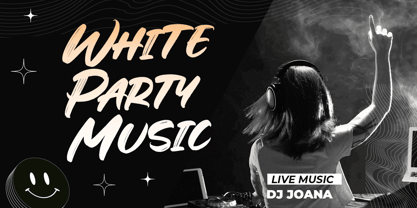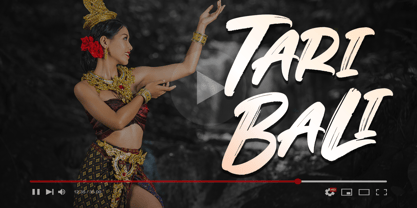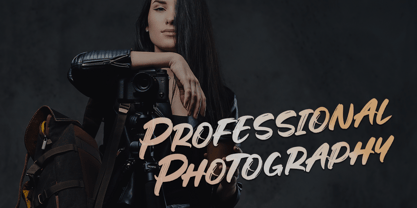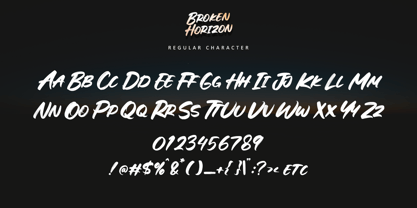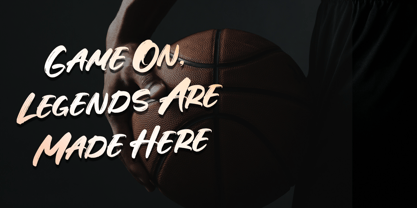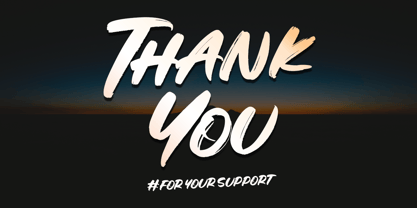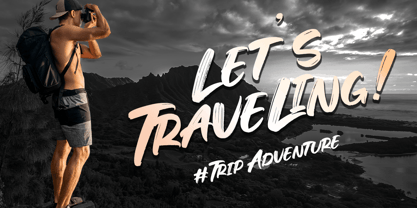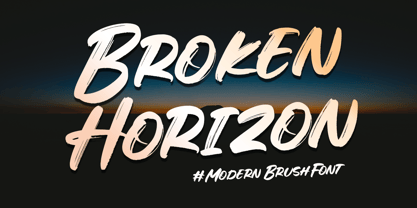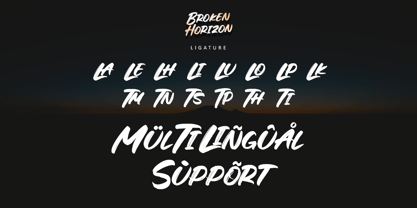
Broken Horizon
by Letterara
The Broken Horizon Font Family was designed by Thomas Aradea and published by Letterara. Broken Horizon contains 2 styles and family package options. More about this family
Introducing Broken Horizon, a natural brush font that combines bold energy with rugged artistry. Featuring dynamic, sweeping strokes and a textured finish, this font adds a handcrafted, powerful touch to your designs. Perfect for striking logos, bold posters, and edgy branding, Broken Horizon exudes movement and creativity while offering seamless access to unique glyphs and swashes with PUA encoding. Elevate your projects with the raw intensity and modern appeal of Broken Horizon, a font that transforms ideas into bold, unforgettable visuals.
Designers: Thomas Aradea
Foundry: Letterara